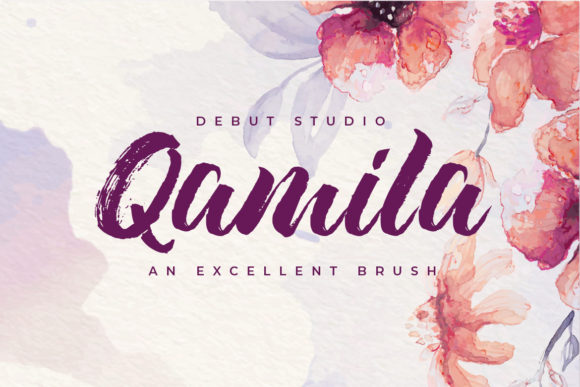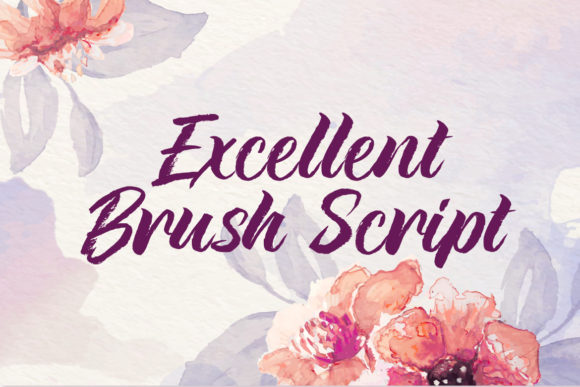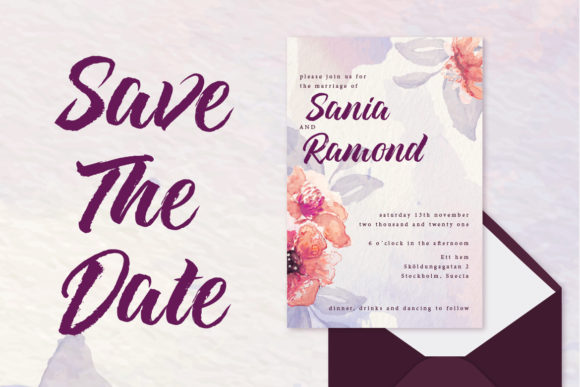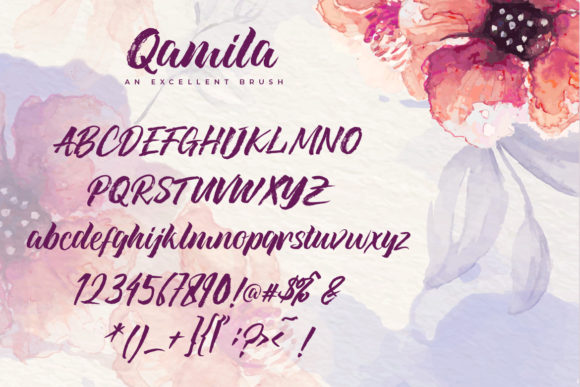
HomeScript FontsQamila Font Script Fonts Qamila Font FacebookXPinterestWhatsApp Qamila Font Poster 2 Qamila Font Poster 3 Qamila Font Poster 4 About Qamila Font Qamila is a lovely script font with a one-of-a-kind style. It will add a romantic touch to any crafting project! DOWNLOAD NOW People also explored Joliè Font Sidenotez Font ‪Pollen‬ Font True Royal Bella Canvas 3005 V Neck Mock Autography Font City Halle Font Color Time Font Beone Light Font Farmwork Font 286 0 TagsQamila Font Previous articleShunda FontNext articleMilliard Script Font LEAVE A REPLY Cancel reply Comment: Please enter your comment! Name:* Please enter your name here Email:* You have entered an incorrect email address! Please enter your email address here Website: Save my name, email, and website in this browser for the next time I comment. Personal Use Free Pretender Personal Use Free Read more about this font Gila Personal Use Free Read more about this font Amelline Personal Use Free Read more about this font Farmgarden Personal Use Free Read more about this font BLOG Exploring Font Trends Shaping Communication in the Digital Era Fonts, like all design elements, are subject to trends. They play a crucial role in communicating a brand's personality,... Elegant Wedding Invitation Fonts – Handwritten & Script Fonts Free vs Paid Fonts: Why Investing in Premium Fonts Is Worth It Best Fonts for T-Shirt Design – Top 2025 Picks